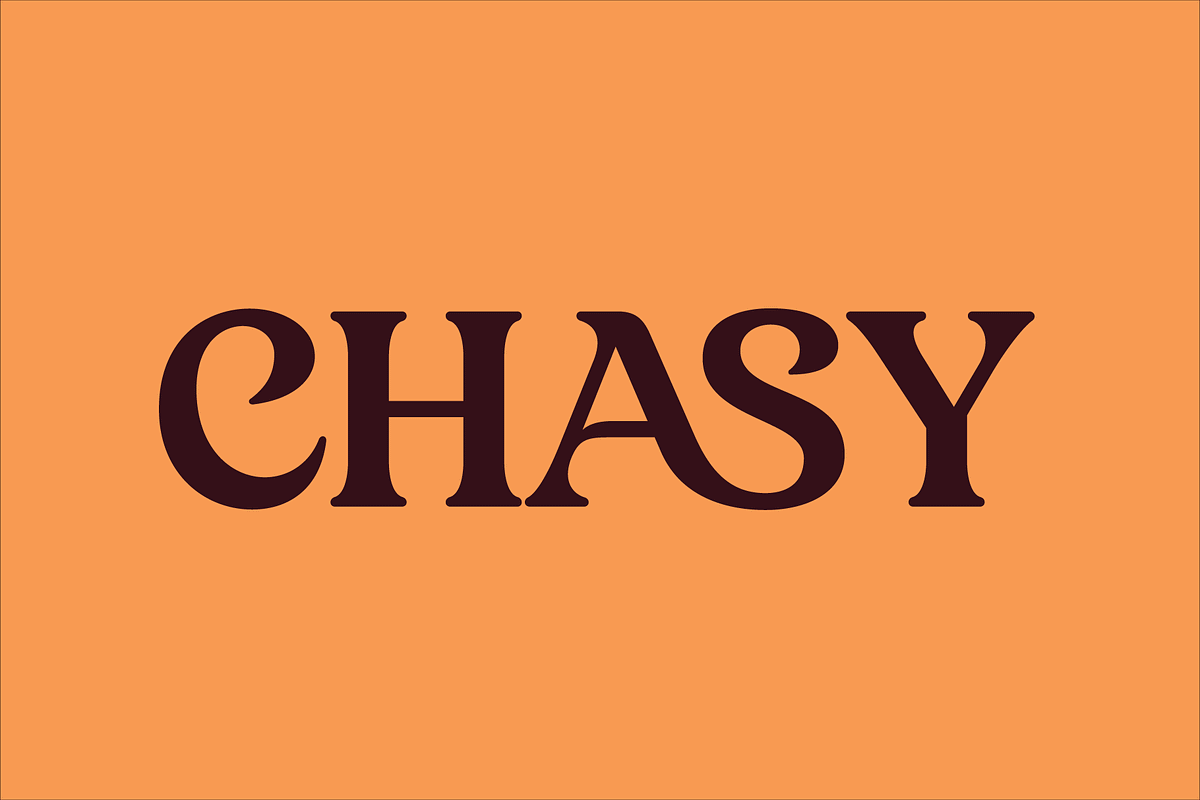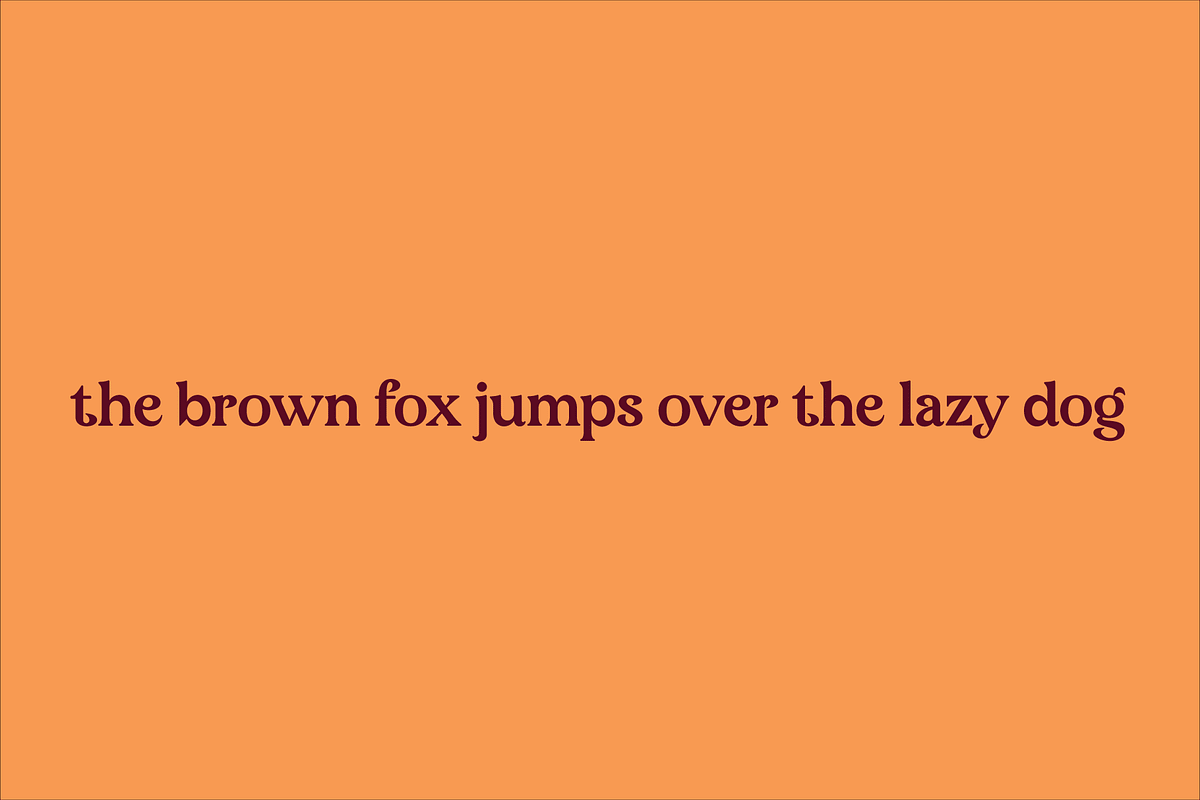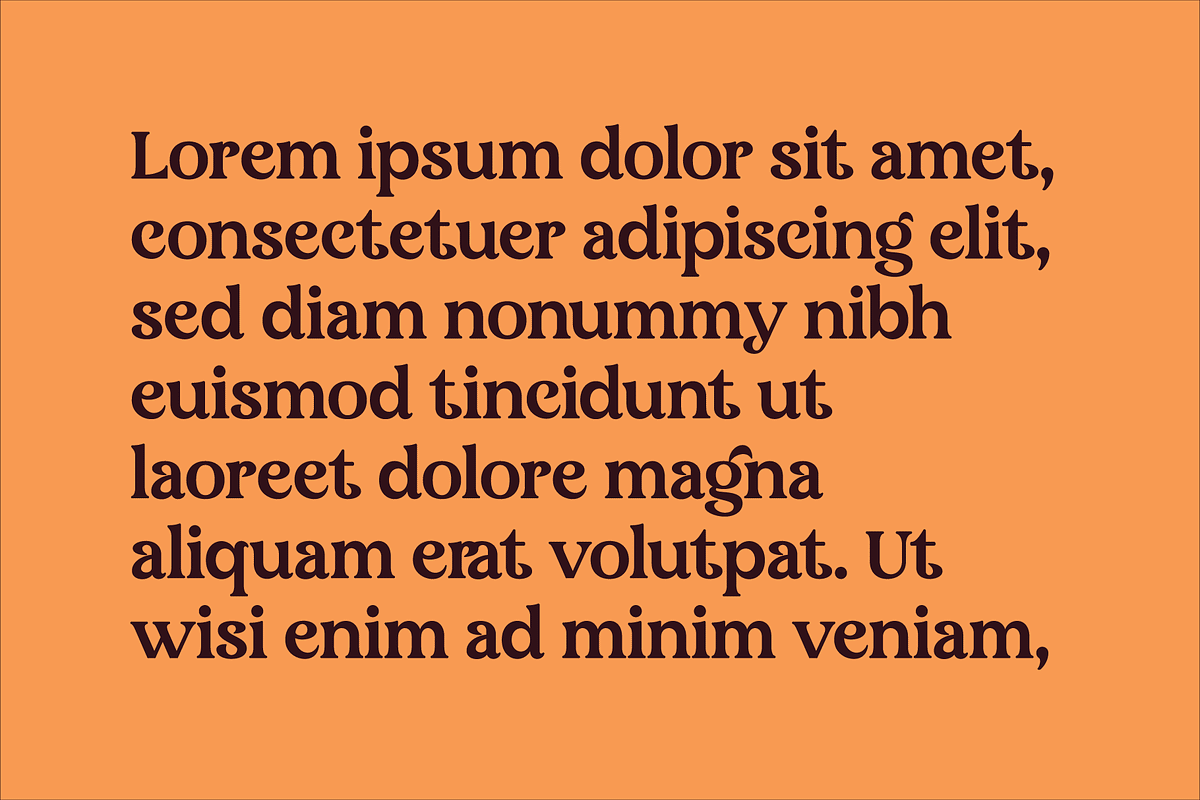
Chasy
Chasy Bold Serif Font
Chasy Bold Serif font is a unique, modern display font with a unique, elegant, and modern style. It is a display font perfect for branding projects, logos, social media posts, product packaging, labels, etc.
Alternate and Ligature